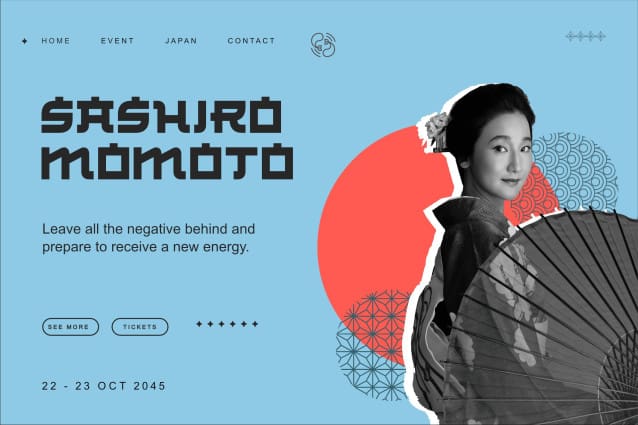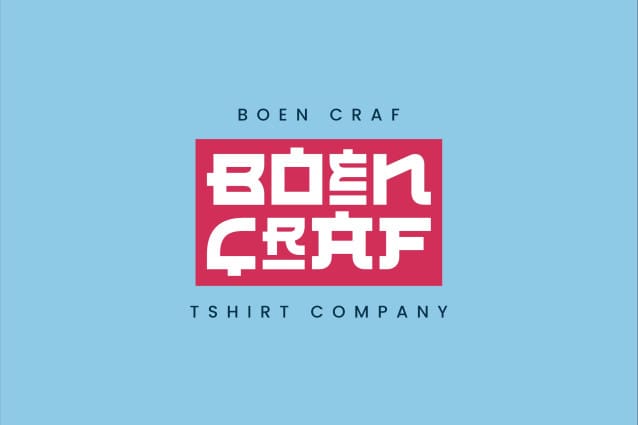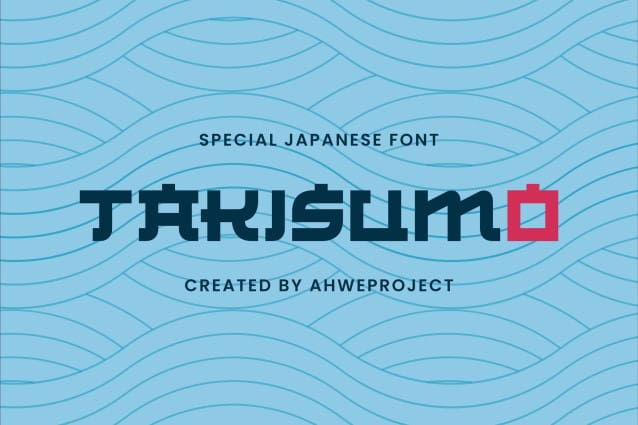
Takisumo Font
Takisumo Font is a font that is inspired by the Japanese style, perfect for any Asian theme of design & promotion to create spectacular designs! Perfect for your design projects like logos, branding, advertising, product designs, stationery, magazine designs, book/cover title designs, photography, art quotes, special events, labels, product packaging, and more.